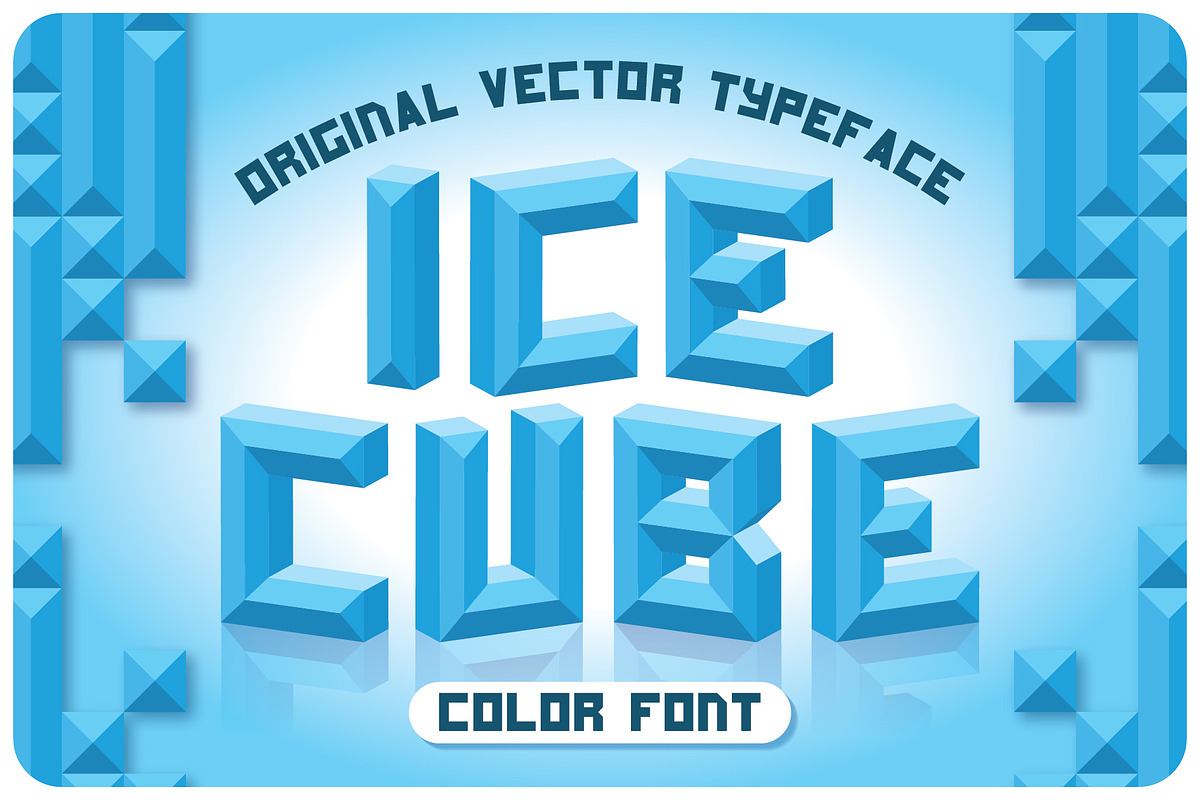
Ice Cube Color Font Free Download is a cool and refreshing typeface that brings 3D, icy visuals straight into your design. With a frosty texture and bold, playful style, this color font is perfect for winter-themed graphics, frozen treat packaging, kids’ party invites, and any creative project that needs a chill, attention-grabbing vibe.
As a color font, it includes vibrant details and textures built right into each letter—no extra effects needed. Whether you're designing for Christmas, summer snow cones, or bold digital content, Ice Cube adds instant visual impact.
Designers love it for its fun, ready-to-use look and seasonal flair. Want to freeze your audience in their tracks? Download Ice Cube Color Font Free Download and cool down your next project with style and originality.